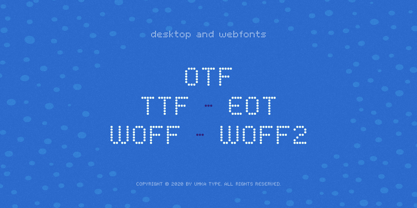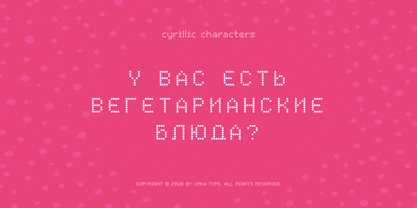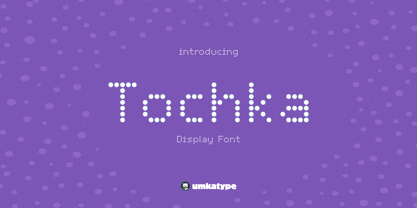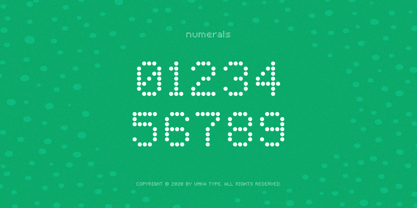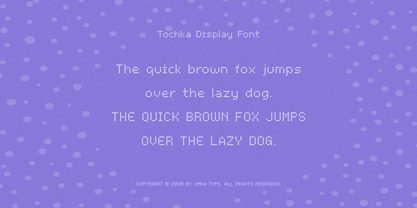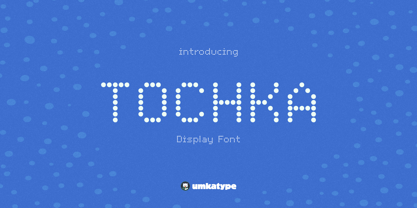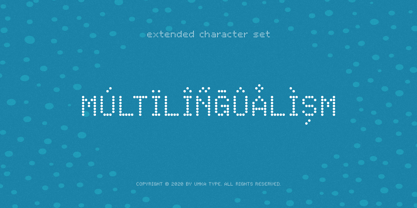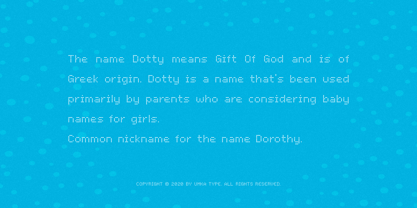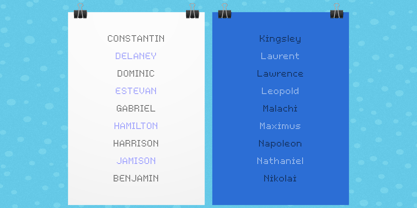
Tochka
by AlperCakici
The Tochka Font Family was designed by Alper Çakıcı and published by AlperCakici. Tochka contains 1 styles. More about this family
Introducing Tockha, a charming dotted font designed with precision and versatility in mind. This playful yet sophisticated typeface adds a touch of whimsy to any project while maintaining excellent readability.
With support for 66 languages, including the Cyrillic alphabet, Tockha is perfect for a wide range of creative applications. Whether you're designing for print or digital, Tockha's unique style and extensive language support make it a must-have addition to your font collection.